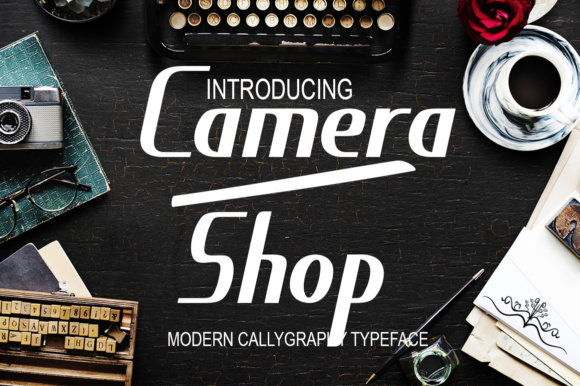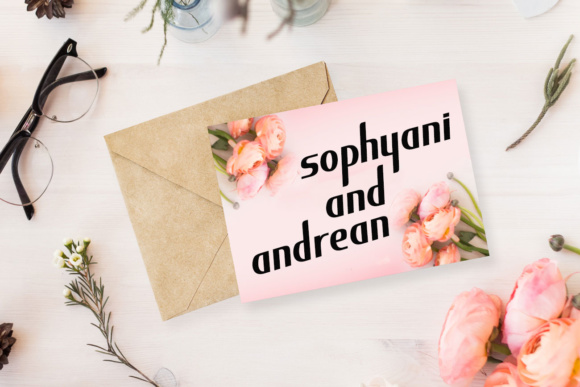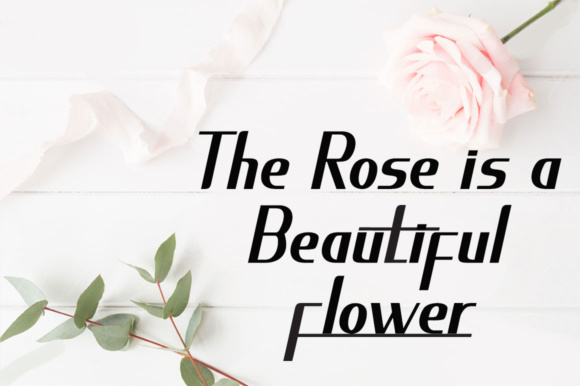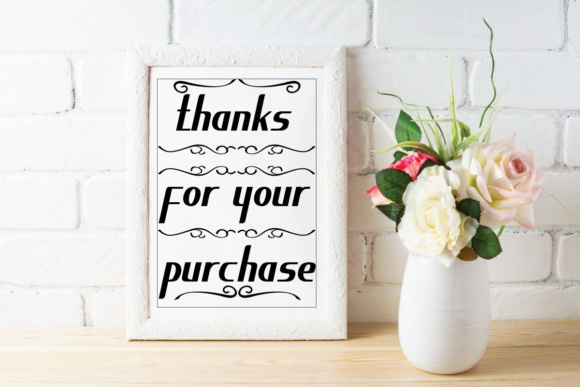
Camera Shop Font
About Camera Shop Font
Camera Shop is a modern, signage inspired display font. Handwritten, this font has unique and modern formations in the set that give it a natural and organic look.